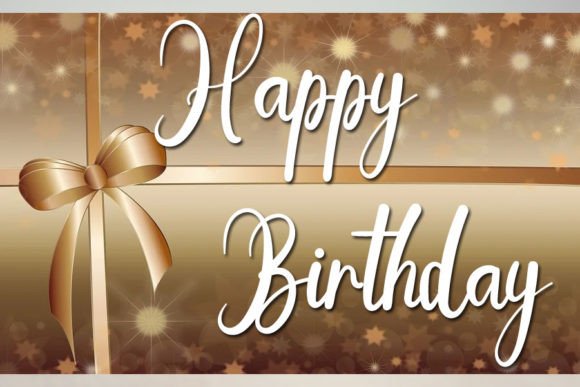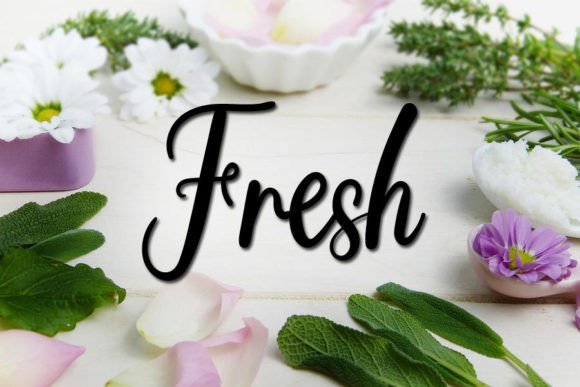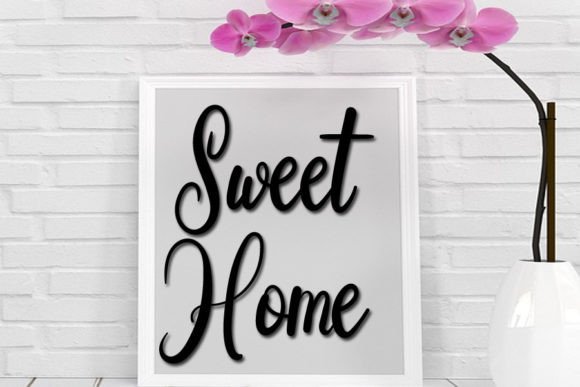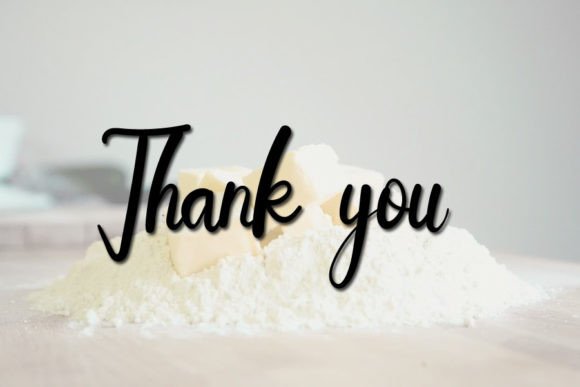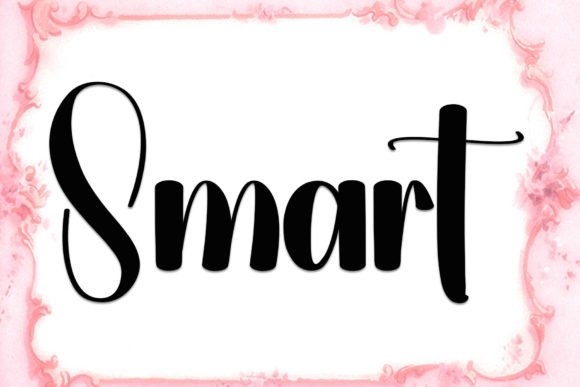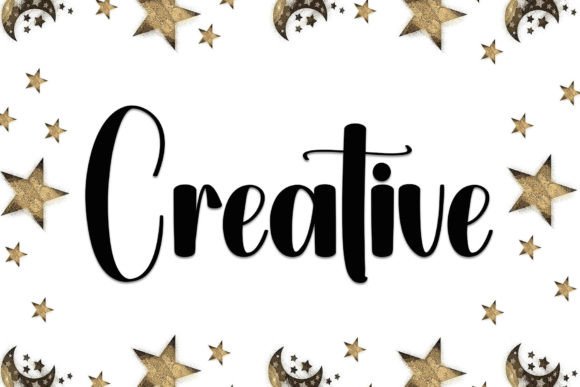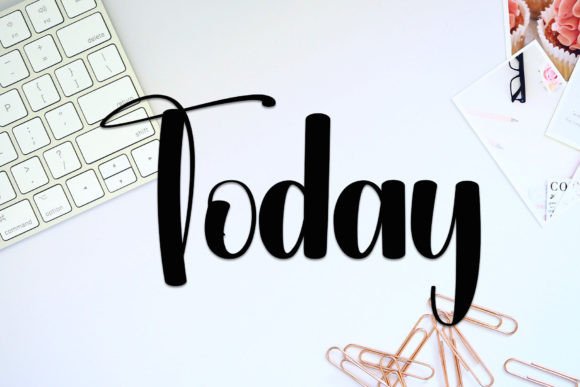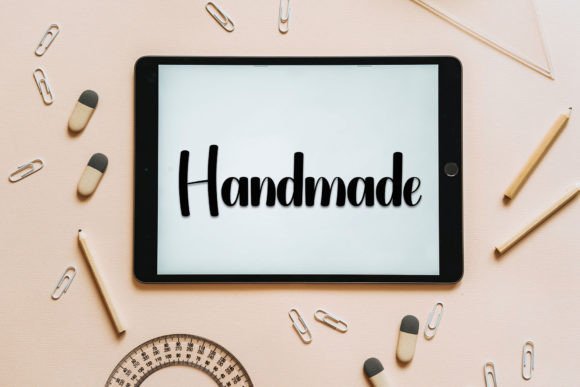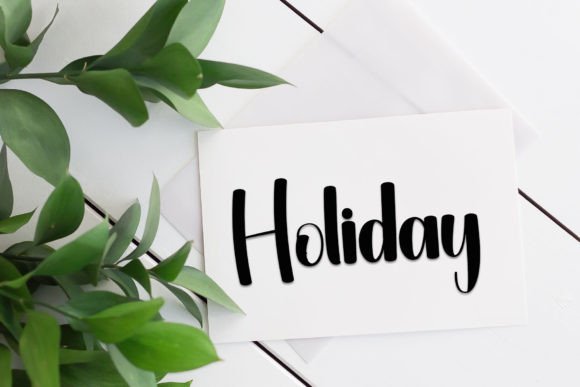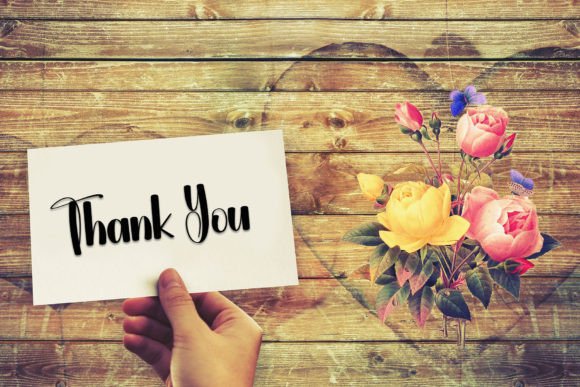
Introducing Butter Font: Elevate Your Designs with Elegance and Sophistication
In the world of typography, a font can make or break the aesthetic of a design project. For those seeking a touch of elegance and sophistication, the Butter Font is an exceptional choice. This stylish handwritten font boasts a contemporary atmosphere while maintaining impeccable form, drawing inspiration from timeless classic calligraphy. In this article, we’ll delve into the features and benefits of the Butter Font, and explore how it can enhance the beauty of your projects.
What is Butter Font?
Butter Font is a carefully crafted, handwritten typeface that exudes a sense of refinement and poise. Its balanced and varied design makes it an excellent option for a wide range of applications, from branding and advertising to packaging and digital media. The font’s contemporary twist on classic calligraphy ensures that it remains fresh and relevant, while its impeccable form guarantees a high level of readability and legibility.
Key Features of Butter Font
• Handwritten with a personal touch: Butter Font boasts a unique, handwritten feel that adds a personal touch to any design project.
• Contemporary atmosphere: The font’s modern design ensures that it remains relevant and fresh, making it perfect for contemporary design projects.
• Impeccable form: The font’s classic calligraphy inspiration ensures that it maintains a high level of elegance and sophistication.
• Balanced and varied: The font’s balanced design and varied letterforms make it easy to read and visually appealing.
Benefits of Using Butter Font
So, why choose Butter Font for your design projects? Here are just a few benefits of using this exceptional font:
• Elegance and sophistication: Butter Font adds a touch of refinement and poise to any design project, making it perfect for high-end branding and advertising campaigns.
• Versatility: The font’s balanced and varied design makes it suitable for a wide range of applications, from digital media to packaging and print materials.
• Readability: The font’s impeccable form and classic calligraphy inspiration ensure that it remains highly readable, even at smaller font sizes.
• Uniqueness: Butter Font’s handwritten feel and contemporary twist on classic calligraphy make it a unique and distinctive choice for designers.
Who is Butter Font Suitable for?
Butter Font is an excellent choice for a variety of designers and crafters, including:
• Graphic designers: Looking for a stylish and sophisticated font to elevate their branding and advertising campaigns.
• Digital artists: Seeking a unique and creative font to add a personal touch to their digital art projects.
• Crafters: Looking for a beautiful and elegant font to use in their handmade crafts, such as journaling, scrapbooking, and card making.
• Marketer: Needing a high-end font to create professional and polished marketing materials.
How to Use Butter Font in Your Designs
Using Butter Font in your designs is easy and straightforward. Here are a few tips to get you started:
• Pair with complementary fonts: Butter Font pairs well with clean and simple fonts, such as sans-serif and serif fonts.
• Experiment with font sizes: The font’s impeccable form and classic calligraphy inspiration make it suitable for use at a wide range of font sizes.
• Add a personal touch: Use Butter Font to add a personal touch to your designs, such as in headings, titles, and quotes.
In conclusion, Butter Font is an exceptional choice for designers and crafters seeking a stylish and sophisticated font to elevate their design projects. With its contemporary atmosphere, impeccable form, and balanced and varied design, this font is sure to add a touch of elegance and sophistication to any project. Whether you’re a graphic designer, digital artist, crafter, or marketer, Butter Font is a versatile and creative choice that’s sure to inspire.
Introducing Butter Font: The Sweetest Handwritten Script Font for Your Designs
Are you looking for a font that adds a touch of warmth and personality to your designs? Look no further than Butter Font, a fun and fresh handwritten script font that’s perfect for a variety of creative projects. In this article, we’ll dive into the features and benefits of Butter Font, and explore how you can use it to elevate your designs.
What is Butter Font?
Butter Font is a beautiful handwritten script font that’s designed to bring a sense of joy and playfulness to your designs. With its flowing curves and whimsical feel, it’s the perfect choice for designers and crafters who want to add a personal touch to their work. Whether you’re creating wedding invitations, thank you cards, quotes, greeting cards, logos, business cards, or any other design that needs a handwritten touch, Butter Font is the perfect fit.
Key Features of Butter Font
• Handwritten script font: Butter Font is a genuine handwritten script font, giving it a unique and personal feel that’s perfect for a variety of designs.
• Fun and fresh: With its playful and whimsical feel, Butter Font is sure to add a touch of fun and freshness to your designs.
• Versatile: Butter Font is perfect for a wide range of designs, from wedding invitations and greeting cards to logos and business cards.
• Easy to use: Butter Font is easy to install and use, making it accessible to designers and crafters of all levels.
How to Use Butter Font in Your Designs
Butter Font is a versatile font that can be used in a variety of designs. Here are a few ideas to get you started:
• Wedding invitations: Add a touch of romance and whimsy to your wedding invitations with Butter Font.
• Thank you cards: Show your appreciation with a personalized thank you card featuring Butter Font.
• Quotes and posters: Use Butter Font to add a playful touch to your quotes and posters.
• Greeting cards: Create unique and personalized greeting cards for any occasion with Butter Font.
• Logos and branding: Use Butter Font to create a custom logo or add a personal touch to your brand’s identity.
• Business cards: Stand out from the crowd with a business card featuring Butter Font.
Why Choose Butter Font?
So why choose Butter Font for your designs? Here are a few reasons:
• Unique and personal: Butter Font adds a unique and personal touch to your designs, setting them apart from the rest.
• Easy to use: Butter Font is easy to install and use, making it accessible to designers and crafters of all levels.
• Versatile: Butter Font can be used in a wide range of designs, from wedding invitations to logos and business cards.
• High-quality: Butter Font is a high-quality font that’s designed to deliver exceptional results.
Tips and Tricks for Using Butter Font
Here are a few tips and tricks for getting the most out of Butter Font:
• Experiment with different colors: Butter Font looks great in a variety of colors, so don’t be afraid to experiment and find the perfect hue for your design.
• Mix and match with other fonts: Butter Font pairs well with a variety of other fonts, so try mixing and matching to create a unique look.
• Use it sparingly: Butter Font is a statement font, so use it sparingly to add a touch of personality to your design.
Butter Font: Access Download Now
Font Name Butter Font
Author ABBAsalam
In conclusion, Butter Font is a fun and fresh handwritten script font that’s perfect for designers and crafters who want to add a personal touch to their work. With its flowing curves and whimsical feel, it’s the perfect choice for a variety of creative projects. Whether you’re creating wedding invitations, thank you cards, quotes, greeting cards, logos, business cards, or any other design that needs a handwritten touch, Butter Font is the perfect fit. So why wait? Download Butter Font today and start creating beautiful, unique designs that stand out from the rest!